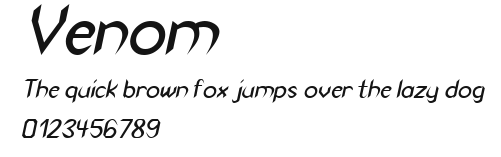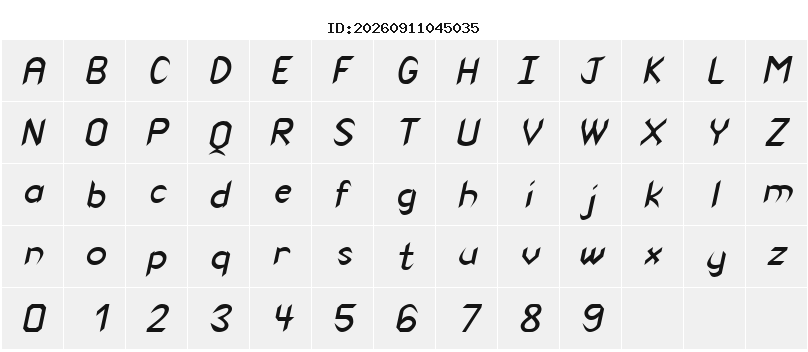
• Font Name: Venom
• Font Style: Oblique
• Full Font Name: Venom Oblique
About Venom.ttf
Venom.ttf is a modern, elegant sans-serif font designed for ultimate readability and visual harmony. Perfect for branding, headlines, web design, and print materials.